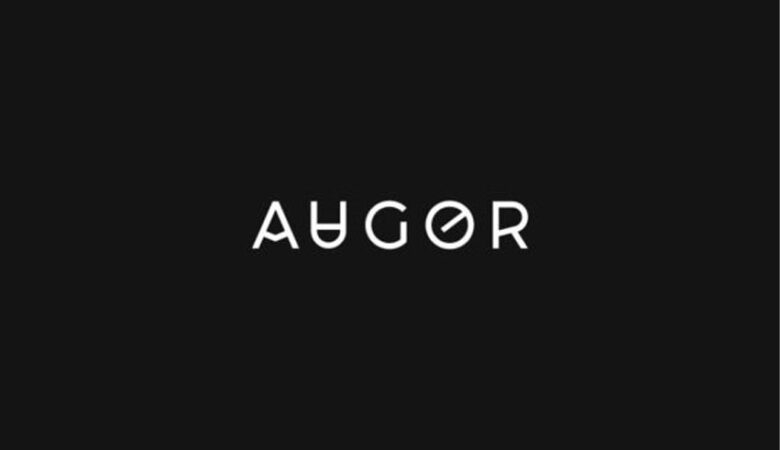
Project Space Font
Project Space Font is a display typeface intended for use in titles, headlines, and in short text blocks, like logotype.
This type of font is perfectly made to be applied especially in Branding, and the other various formal forms such as labels, logos, magazines, books, packaging, fashion, makeup, stationery, novels, labels, or any type of advertising purpose.